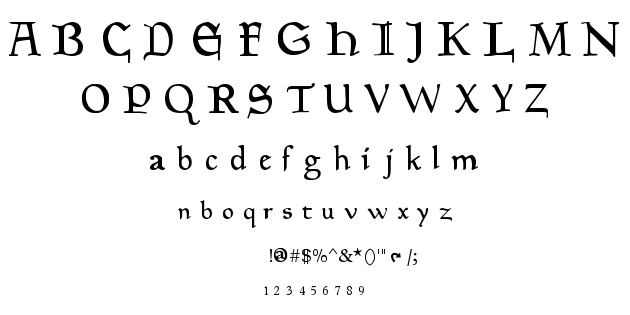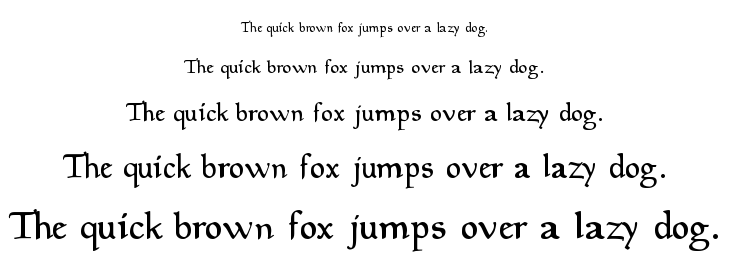
TTF – Planewalker
Former “Magic Cards”. Based on the text used in older Magic: The Gathering cards. Maintenance release with massive error-correction.